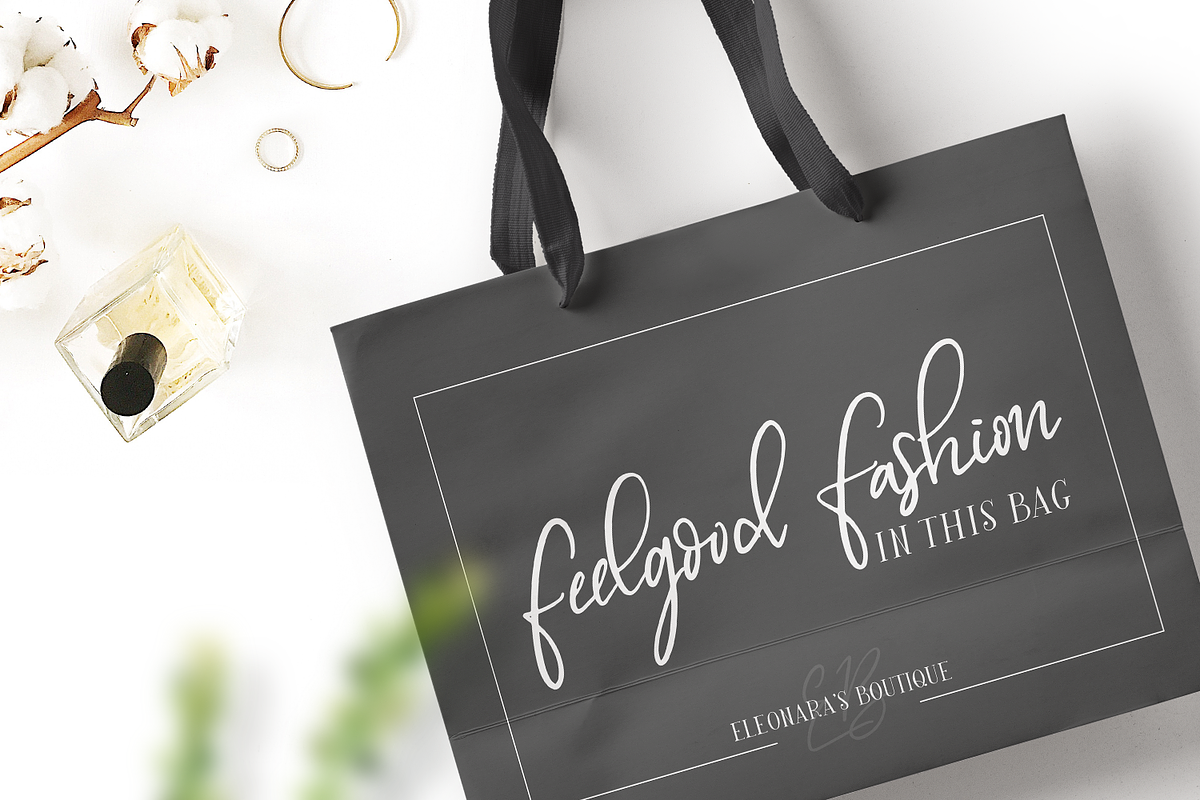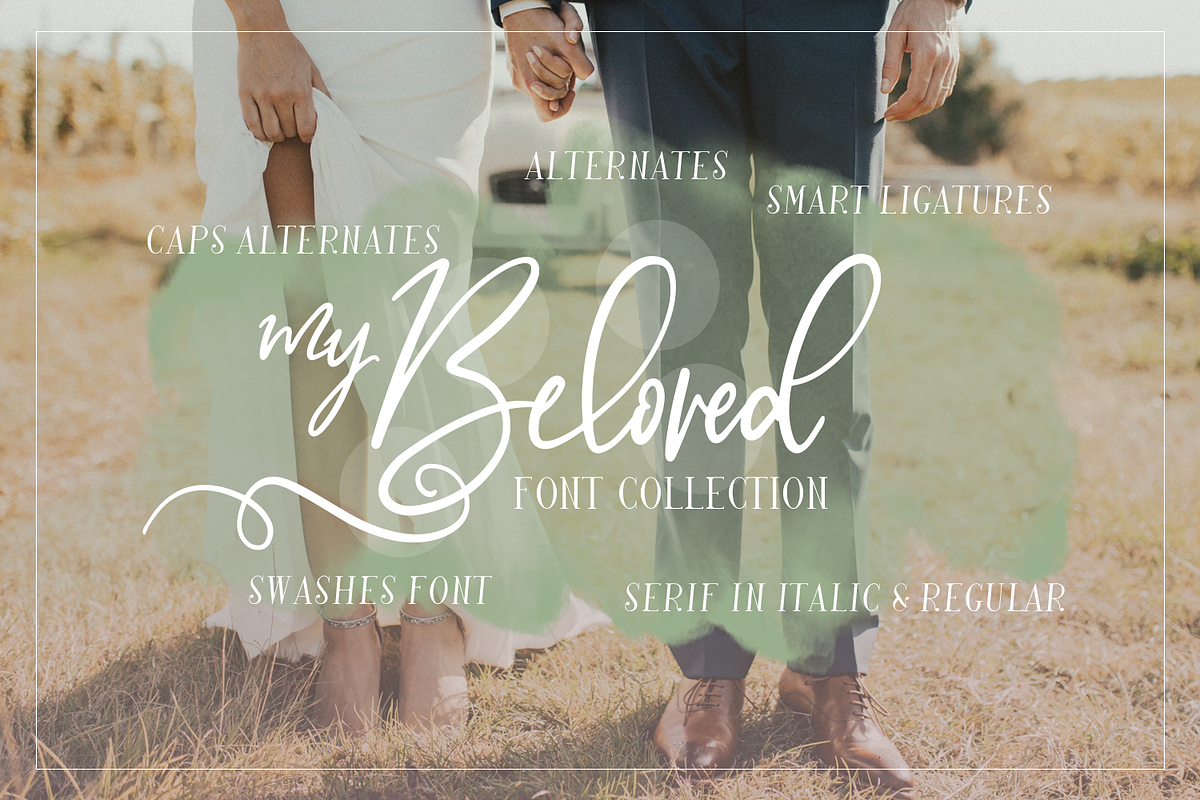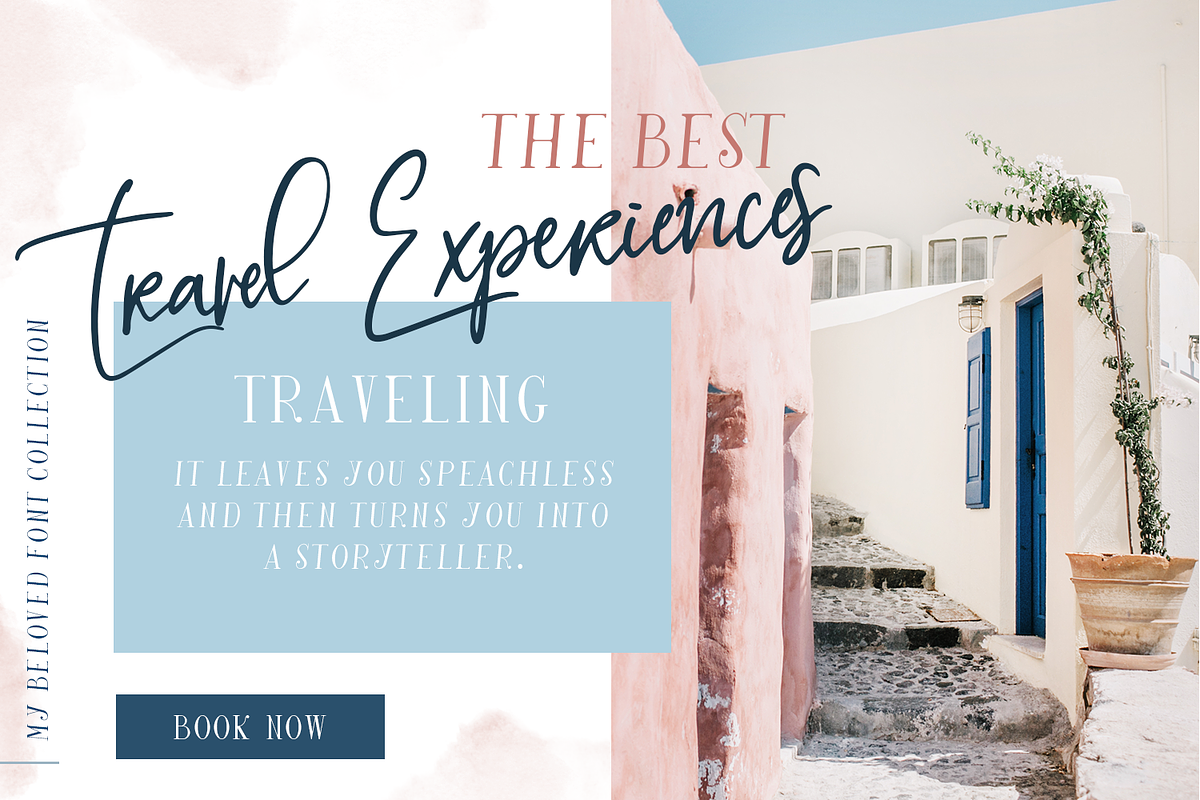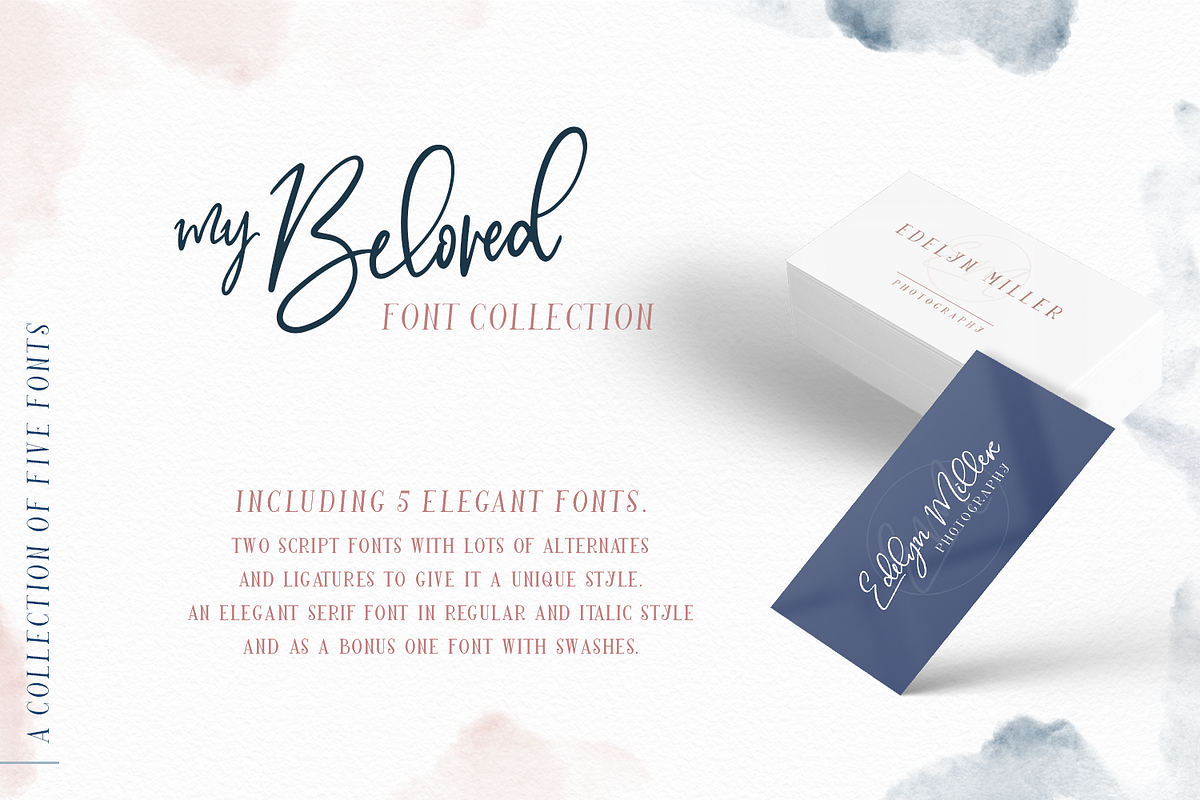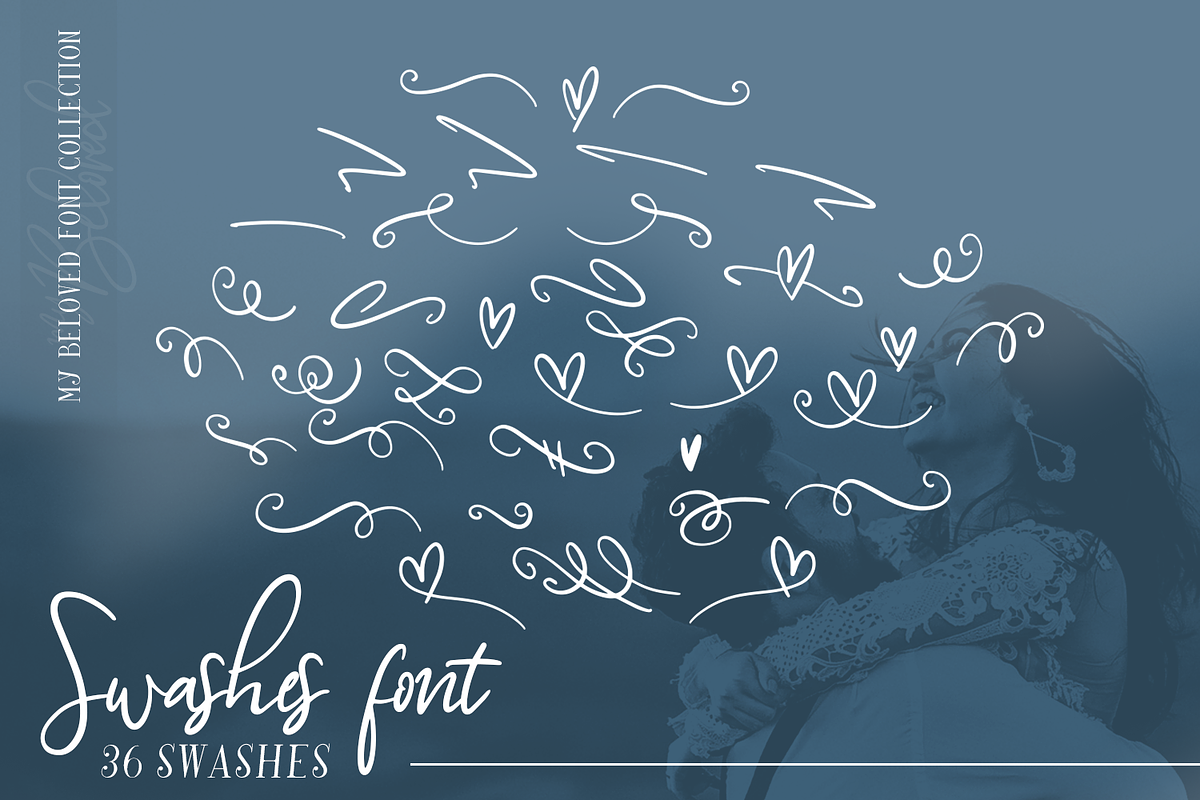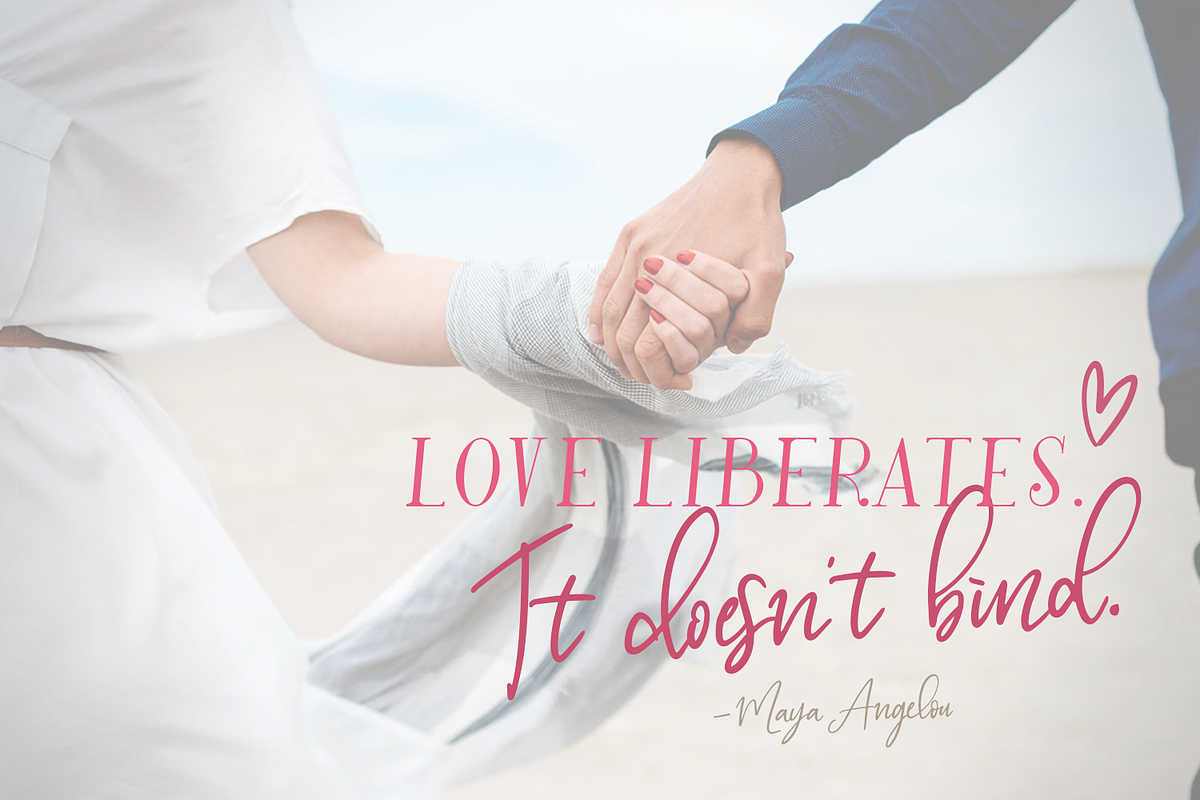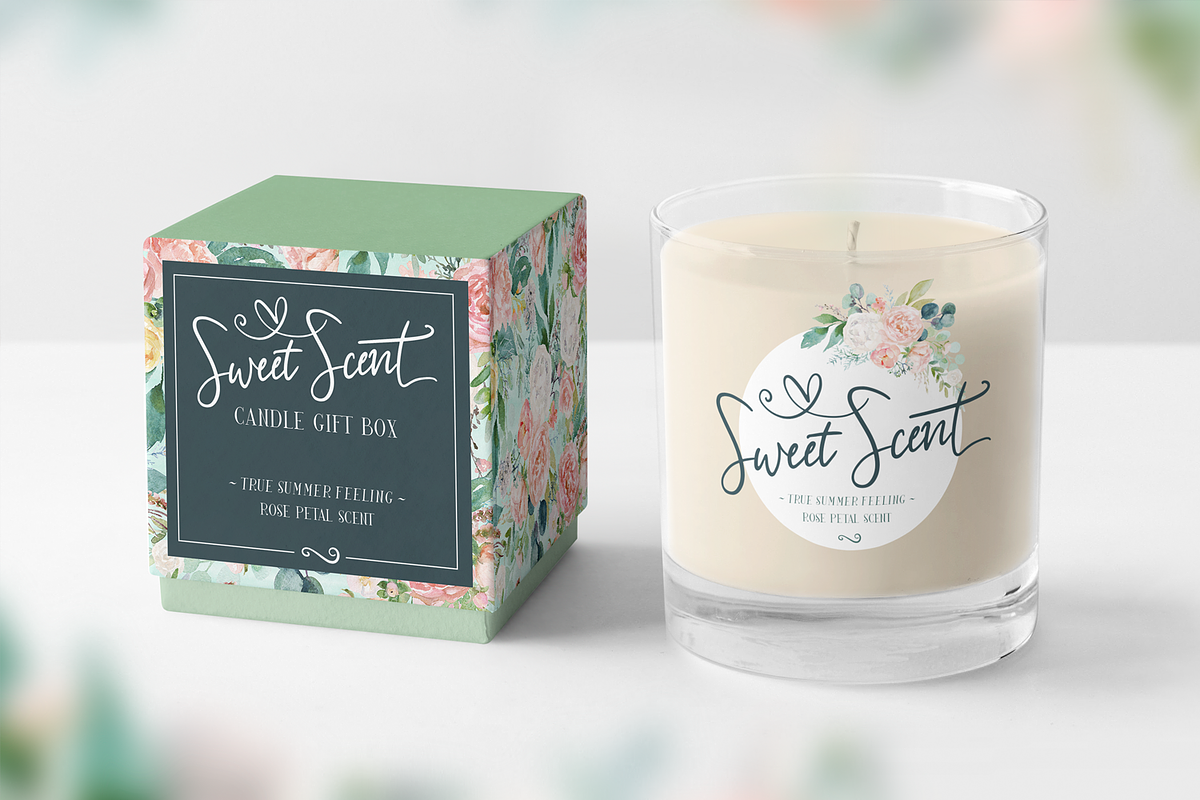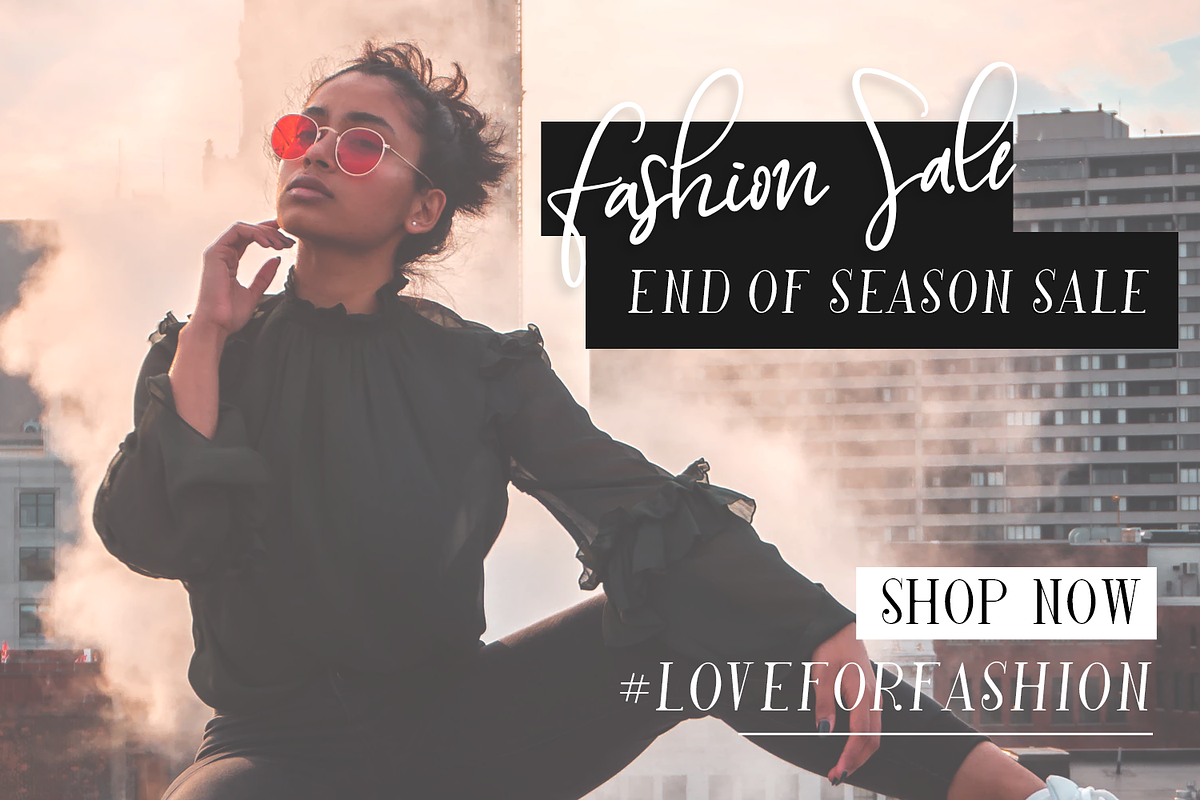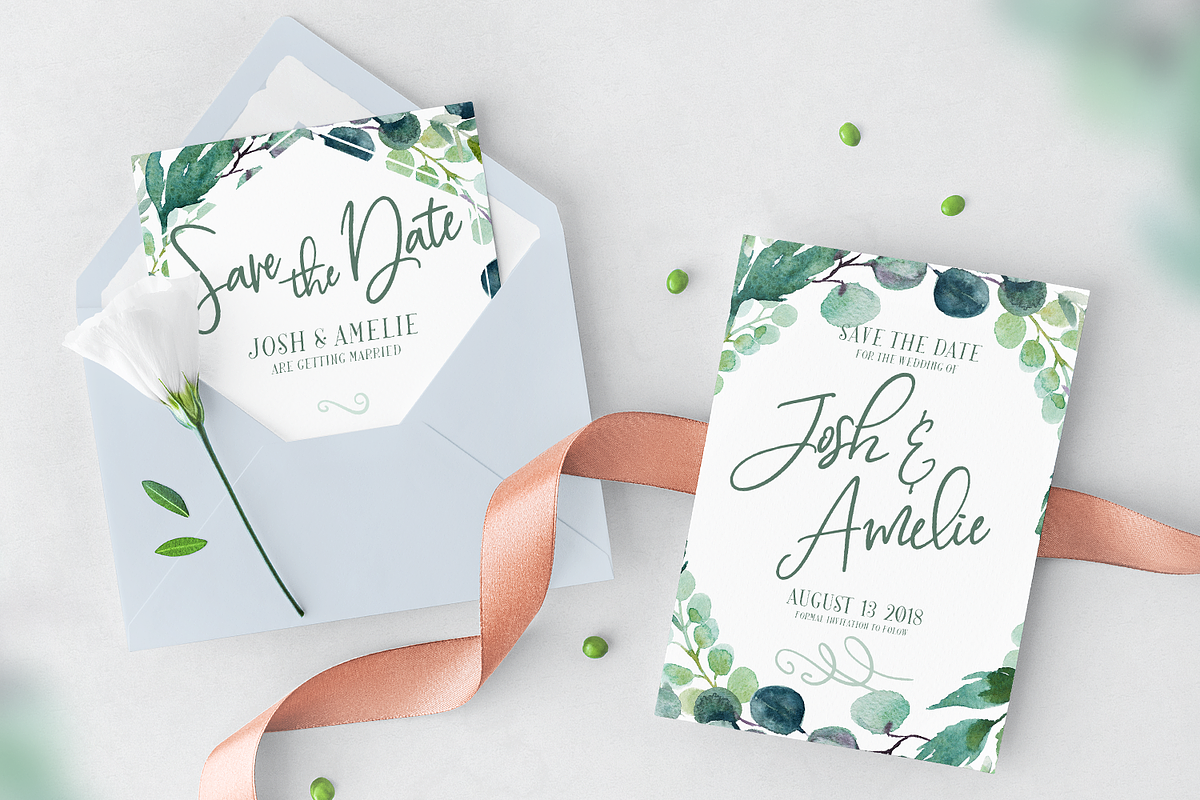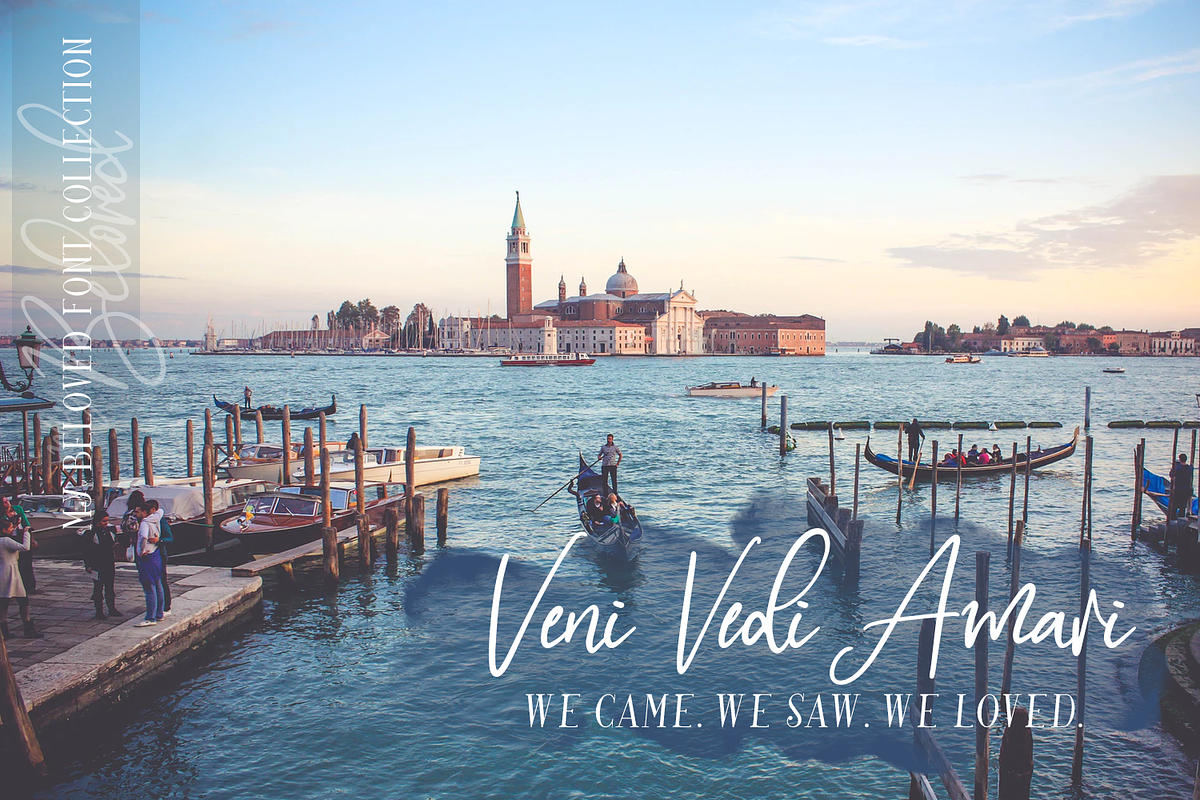
My Beloved ~ Script & Serif Font
Introducing the My Beloved Font Collection, elegant fonts with a romantic modern touch to it. My Beloved is a sophisticated script and serif font that's really charming to combine together. It can be used for logo's, tote bags, cards, wedding designs, and ofcourse much more. It contains ligatures and alternatives to finish it off and give it a unique style.
My Beloved Regular. ~ A gorgeous script font, that has lots of ligatures and alternates. Really cute and pretty to combine with the Serif font.
My Beloved Alternates. ~ For your convenient, I've created a seperate font with the alternates in case you can't access the glyphs panel.
My Beloved Serif. ~ A Classy Serif font that really compliments the script font.
My Beloved Serif Italic. ~ The italic serif font looks just a little more classy.
My Beloved Swashes, 36 swashes to combine with your texts.
I want to sing the praises of this gorgeous font, My Beloved, and its designer, Chantal! First, the font is just absolutely beautiful, and it has all the lovely style, but it's readable too! I find that discouraging with a lot of fonts that sacrifice readability for style, but Chantal balanced both needs beautifully. I had some trouble at first using it the first time because I didn't realize the rich variety of ligature options that Chantal put together for many letter combinations—so get your glyphs panel out and look at both versions of "Regular" and "Alternates" in that panel. They can be spread out, so keep looking—it's well worth it to add a special touch. In this process of not realizing why I couldn't access certain letters, Chantal was incredibly responsive, kind, patient and helpful over several email exchanges while we troubleshooted. I highly recommend the My Beloved font family and working with this talented, kind designer! I would give her more stars if I could!